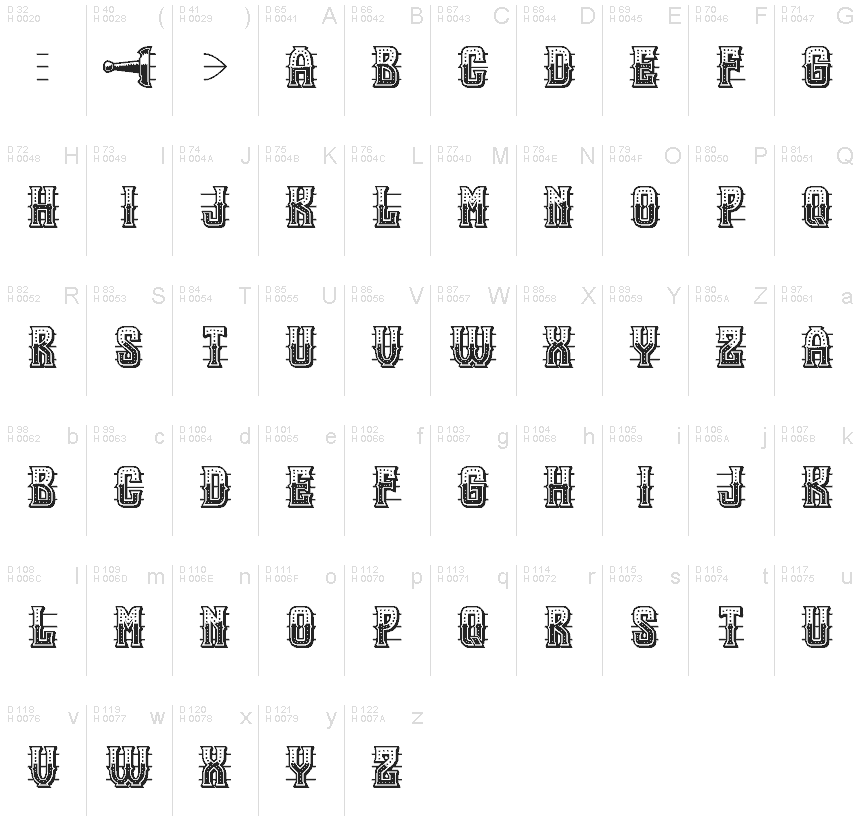
Sword Regular
Sword font by Vladimir Nikolic is a condensed decorative display typeface with a retro element. It has bold outlines, a dotted texture, and an amazing three-dimensional effect that gives importance and volume to each character. Designs gain more drama and intensity with this ornamental font that has theatrical compositions.